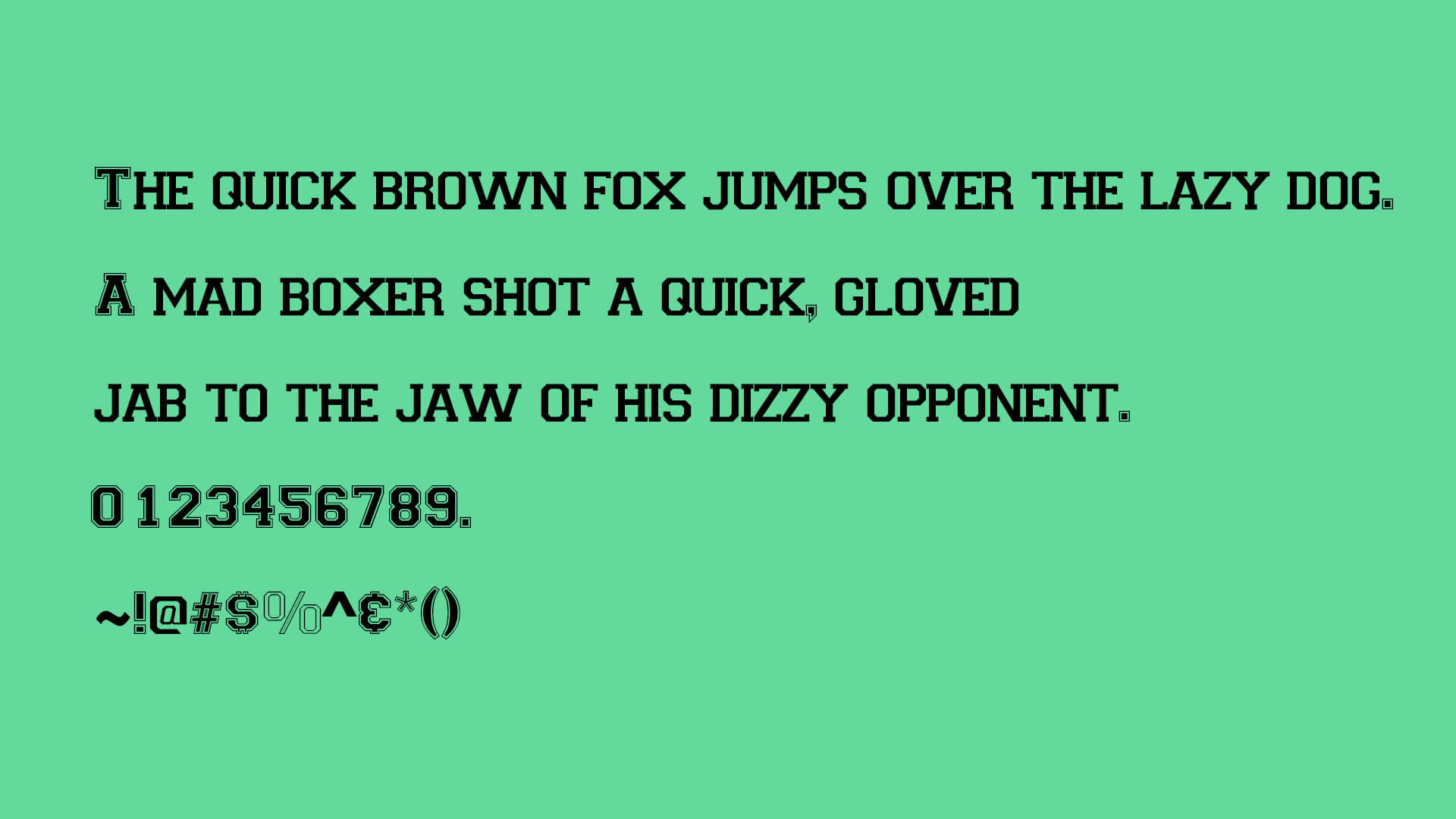
Varsity Font is an exceptional Fancy Typeface Family. This Font is designed through Brøderbund Software. Actually, the font was inspired by the old school thought. This typeface is perfect for any type of design work. If you desired to add some old-school styles to your designs then you should select Varsity font for these kinds of purposes.
Varsity Font Family
Name | Varsity Font |
Designer | Brøderbund Software |
Style | Fancy |